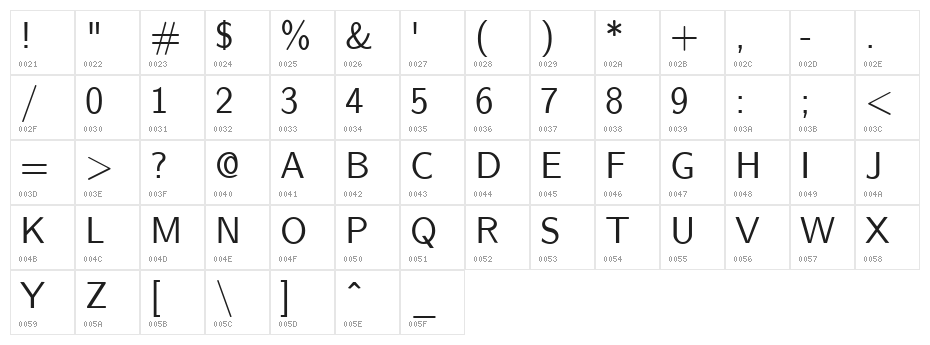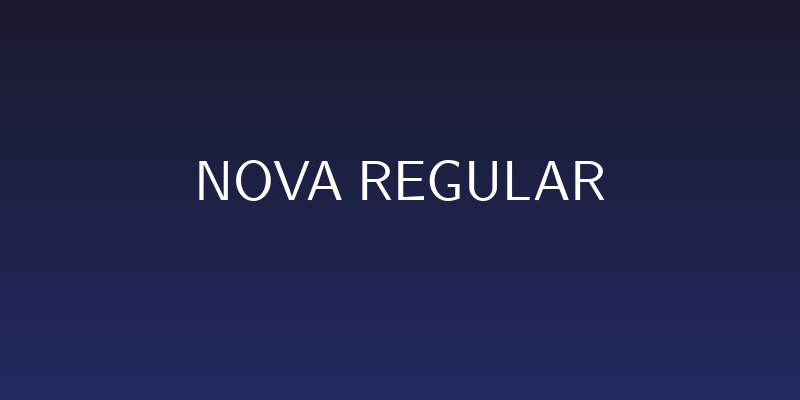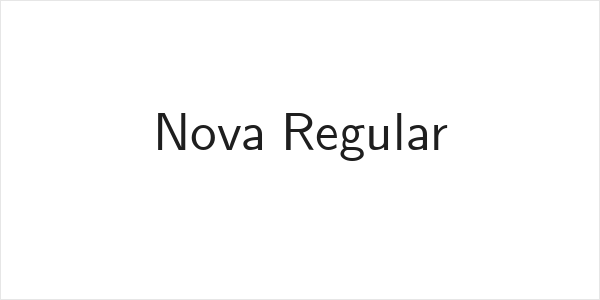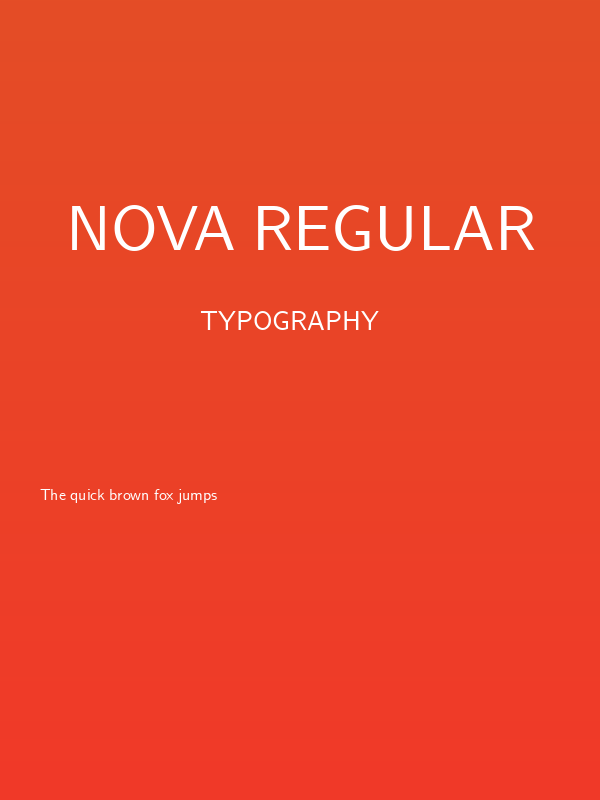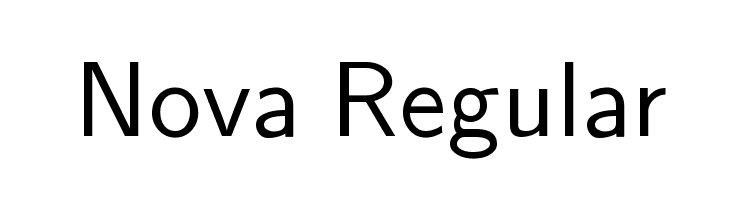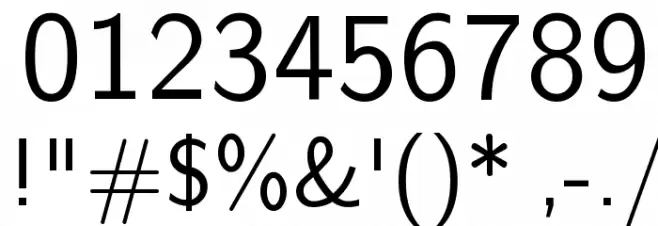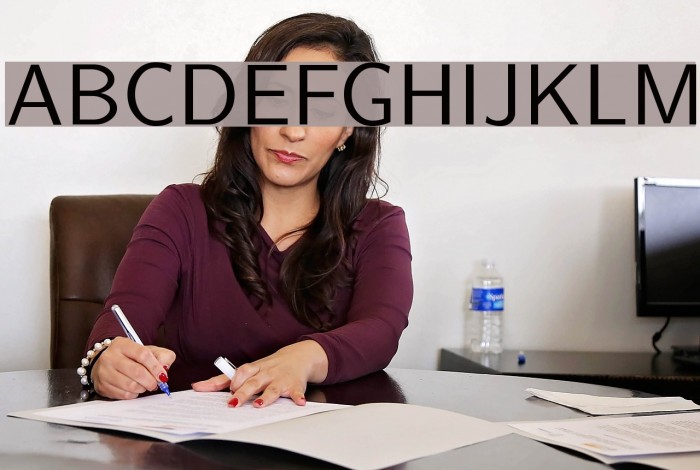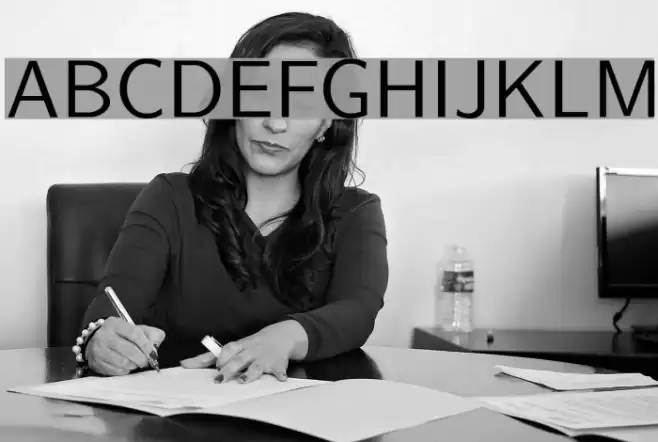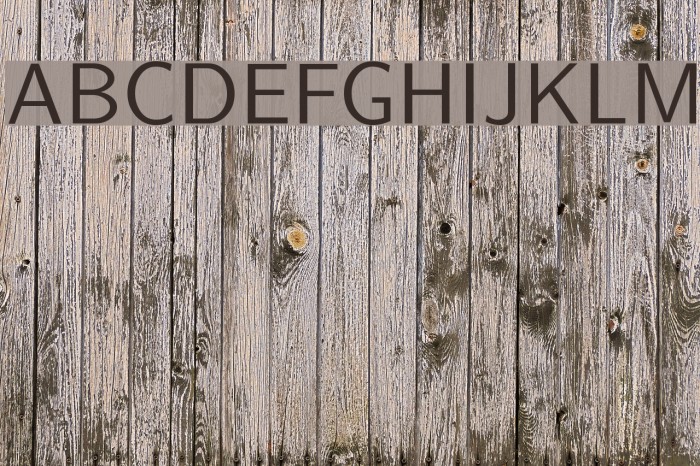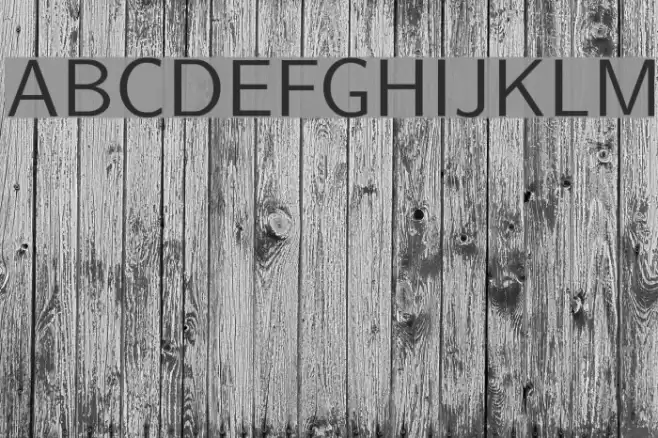
This font is a clean and modern sans-serif typeface characterized by its simplicity and readability. The letters are evenly spaced with a consistent stroke width, providing a balanced and harmonious appearance. The uppercase and lowercase letters maintain a uniform height, contributing to its legibility. The numerals are clear and distinct, making them suitable for various applications. Special characters are well-defined, ensuring versatility in design projects. The overall design is sleek and contemporary, making it ideal for digital and print media.
| Use Case | Headlines, Body text, Logos |
| Proposed Projects | Ideal for web design, corporate branding, user interfaces, and editorial layouts. |